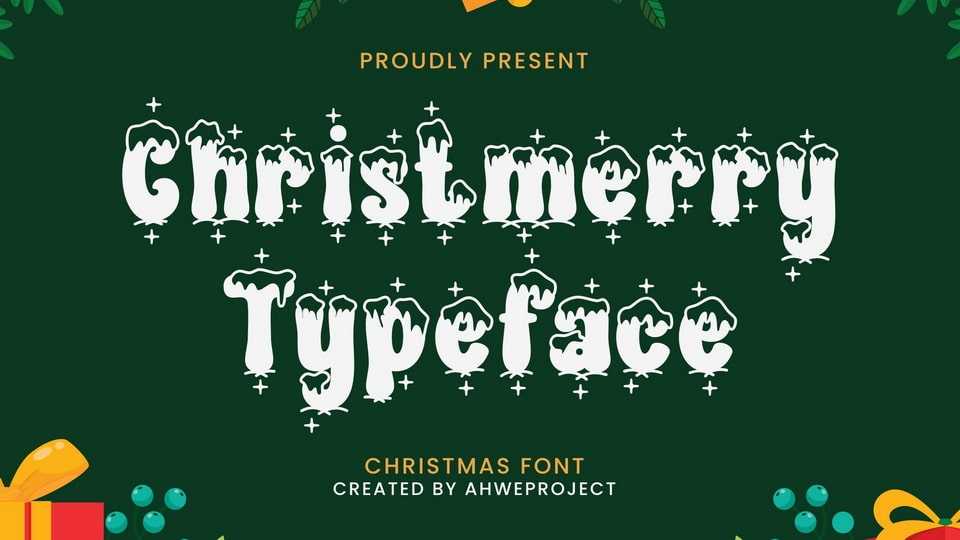
Download Christmerry font, a display typeface in a Christmas theme, perfect for sleigh rides and caroling. It’s very suitable for Christmas cards, wedding invitations, branding.